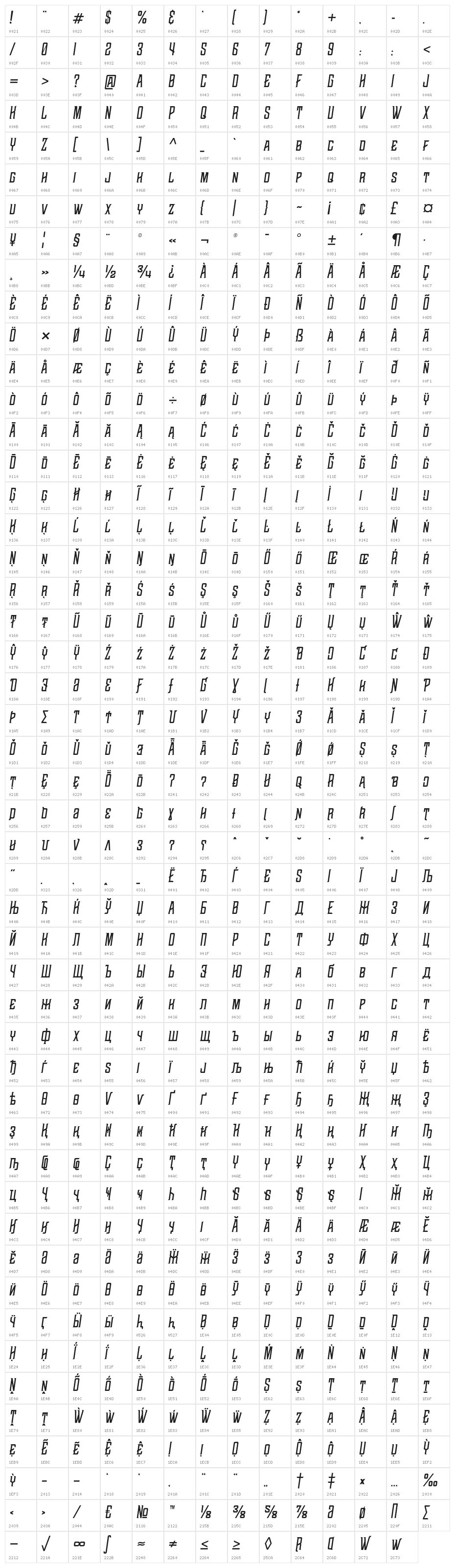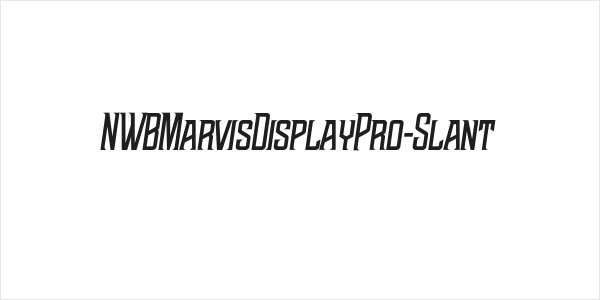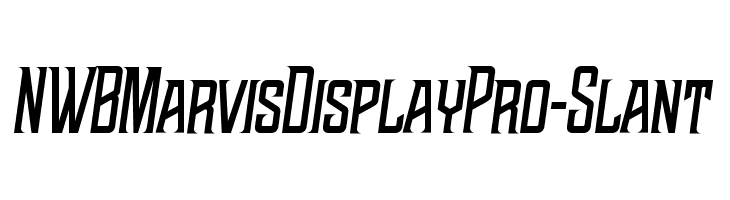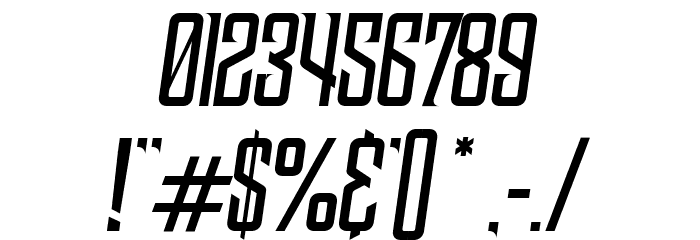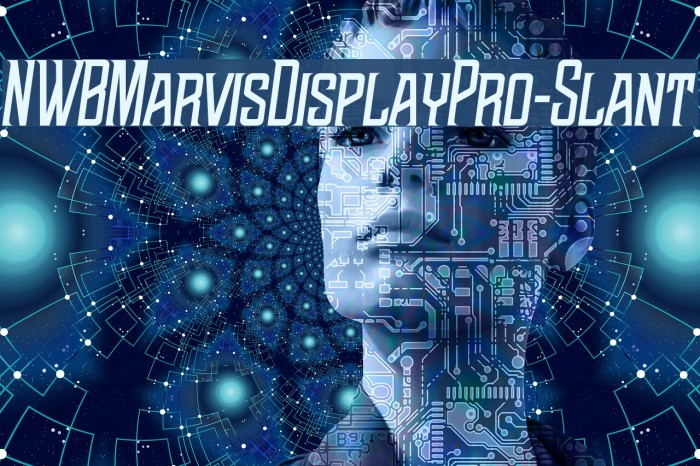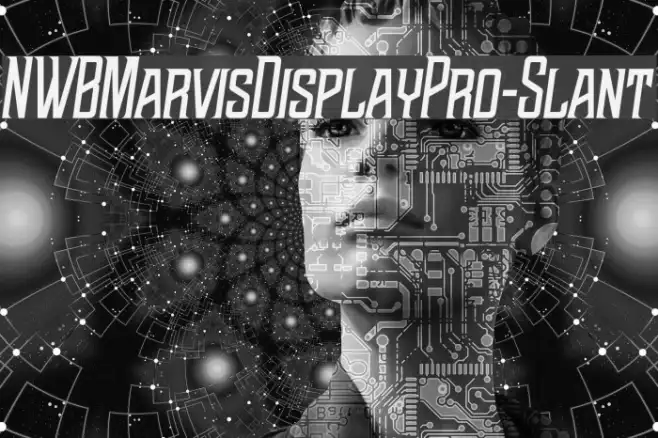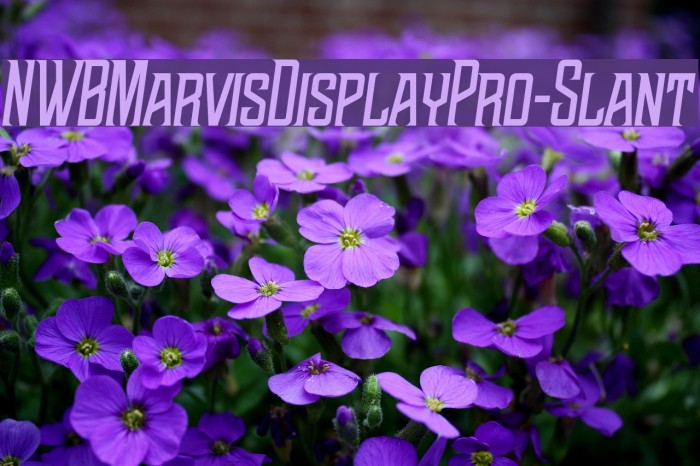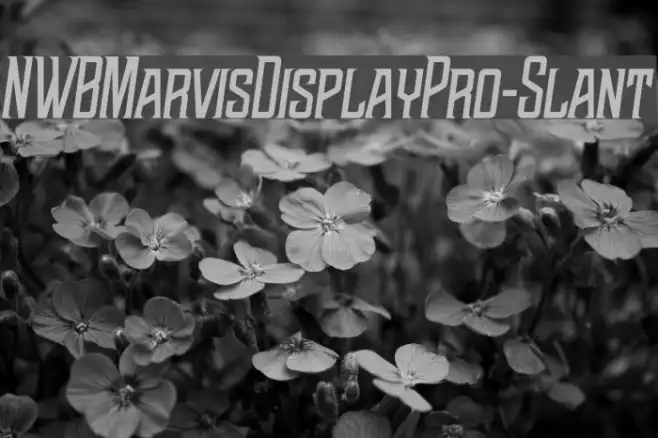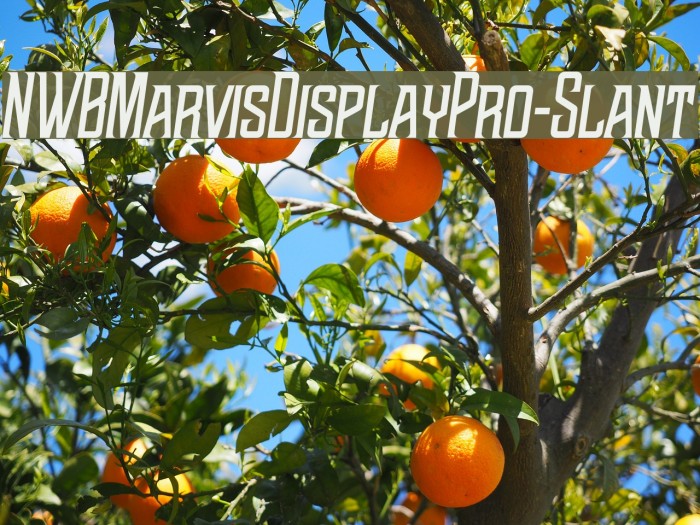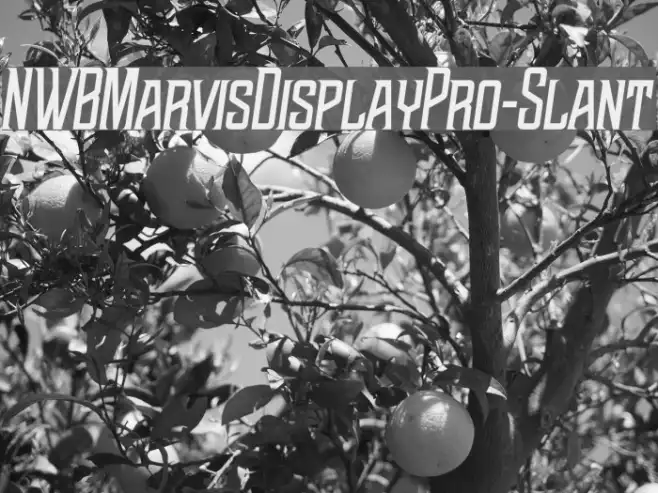
NWBMarvisDisplayPro-Slant Font
NWBMarvisDisplayPro-Slant Description
This font features a bold and dynamic slant, giving it a sense of motion and energy. The characters are sharply defined with angular edges, creating a modern and assertive appearance. The uppercase and lowercase letters maintain consistent proportions, while the numerals are distinct and easily readable. Special characters are designed with the same angular style, ensuring uniformity across the font. The overall design is sleek and contemporary, making it suitable for projects that require a strong visual impact.